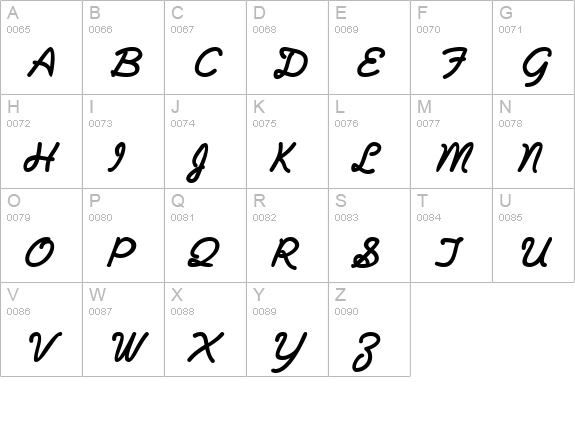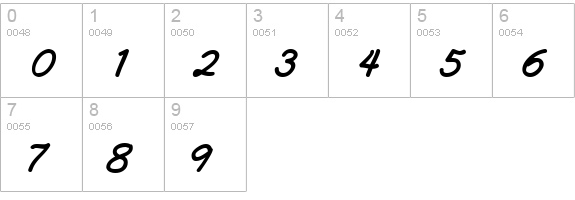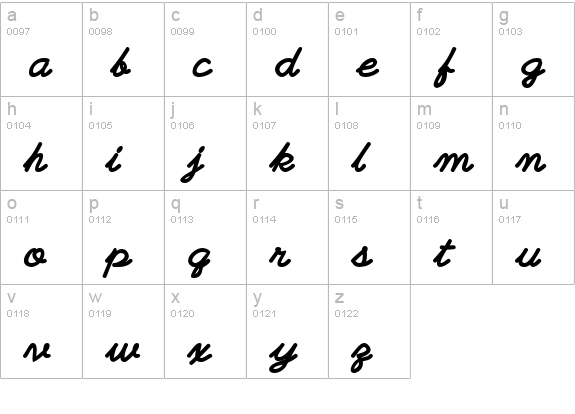
PlainPensleXBold Italic Font Details
PlainPensleXBold Italic is a distinctive, italic variant in the PlainPensleXBold typeface family \xE2\x80\x94 well suited to design and typography projects.
Introducing PlainPensleXBold Italic, a mesmerizing font that effortlessly combines elegance and boldness. This unique typeface is perfect for adding a touch of sophistication to any design project. Its sleek and slanted italics perfectly complement the robustness of its bold strokes, creating a harmonious balance that is visually stunning. PlainPensleXBold Italic is not just aesthetically pleasing, but also highly versatile. Whether used for branding, editorial design, or even personal projects, this font is sure to make a lasting impression. Its carefully crafted letterforms exude a sense of confidence and professionalism, making it an ideal choice for any bold statement. But what truly sets PlainPensleXBold Italic apart is its accessibility. This font is freely available for download at FontsMarket.com, allowing designers, creatives, and enthusiasts alike to unleash their creativity without any limitations. Now, you can elevate your designs without breaking the bank. The attention to detail in PlainPensleXBold Italic is evident in every curve and stroke. Its graceful yet powerful presence evokes a sense of elegance and modernity, making it an excellent choice for luxury brands, high-end fashion, and sophisticated design projects. With this font, you can effortlessly captivate your audience and leave a lasting impression. So why wait? Unlock the potential of your designs with PlainPensleXBold Italic. Download it for free at FontsMarket.com and let your creativity soar to new heights. Say goodbye to limitations and hello to a world of endless possibilities.